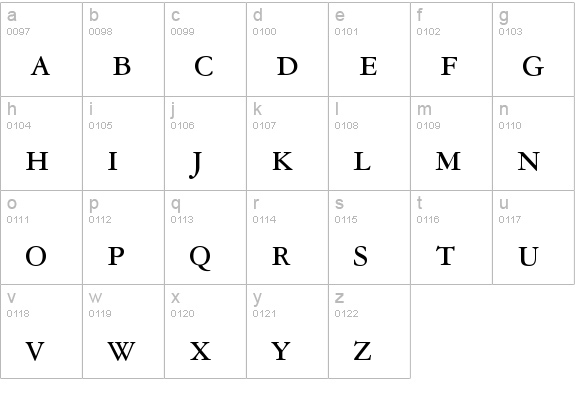
Garamond Reprise OldStyle SSi Small Caps Font Details
Garamond Reprise OldStyle SSi Small Caps font is a timeless and elegant typeface that exudes sophistication and refinement. With its delicate serifs and graceful curves, this font captures the essence of classic design while adding a contemporary twist. Designed with small caps in mind, Garamond Reprise OldStyle SSi Small Caps font is perfect for adding a touch of distinction to any project. Whether it's for a formal invitation, a stylish logo, or a sophisticated headline, this font will elevate your design to new heights. What makes Garamond Reprise OldStyle SSi Small Caps font even more appealing is that it is free to download at FontsMarket.com. This means that you can enjoy the beauty and versatility of this font without any cost. Whether you're a professional designer or a hobbyist, this font is a valuable addition to your collection. With its wide range of characters and extensive language support, Garamond Reprise OldStyle SSi Small Caps font offers endless possibilities. Its clean and legible design ensures that your message is conveyed with clarity and elegance. From print to digital media, this font adapts seamlessly to any medium, making it a versatile choice for all your creative endeavors. So why wait? Download Garamond Reprise OldStyle SSi Small Caps font for free at FontsMarket.com and unlock its full potential. Experience the beauty of this timeless typeface and take your designs to the next level.